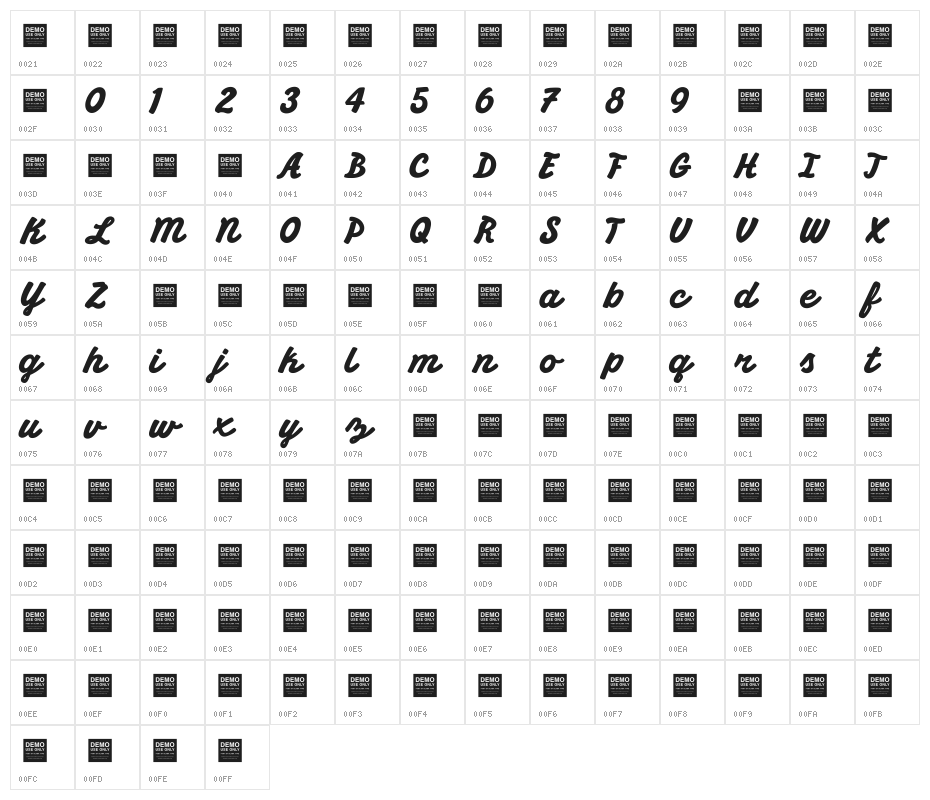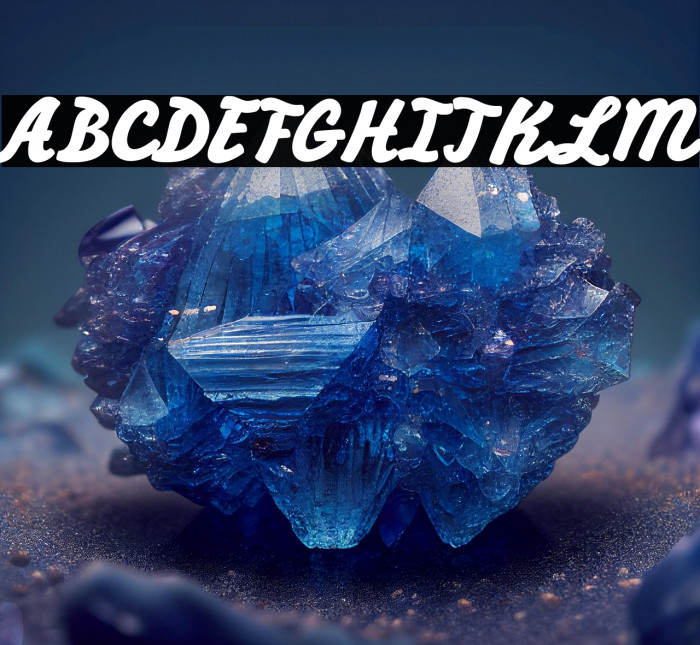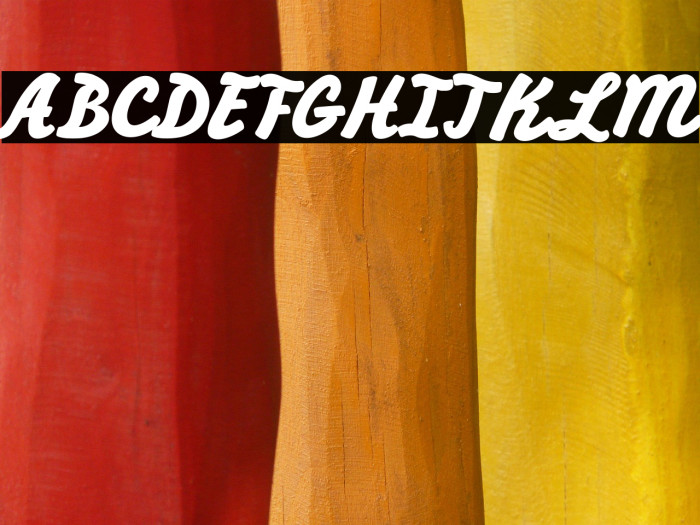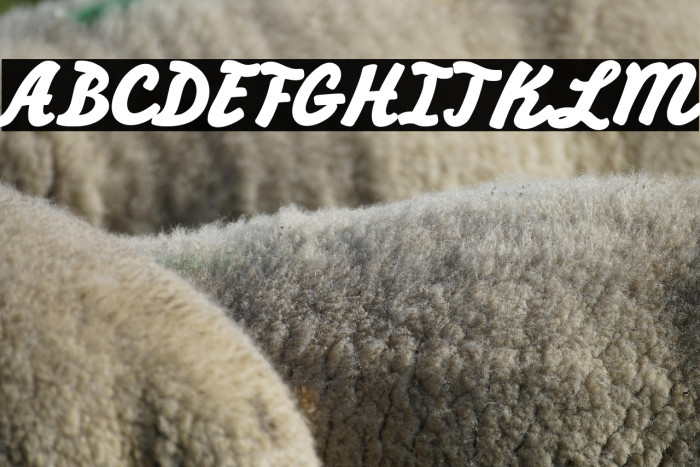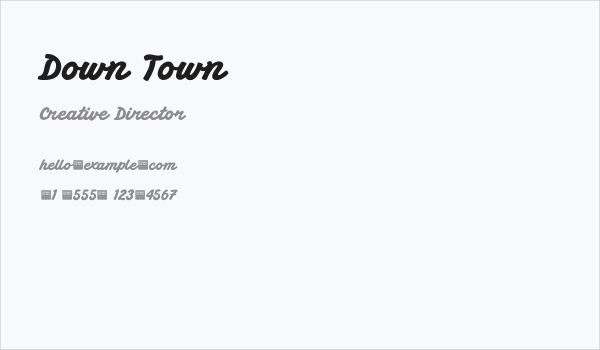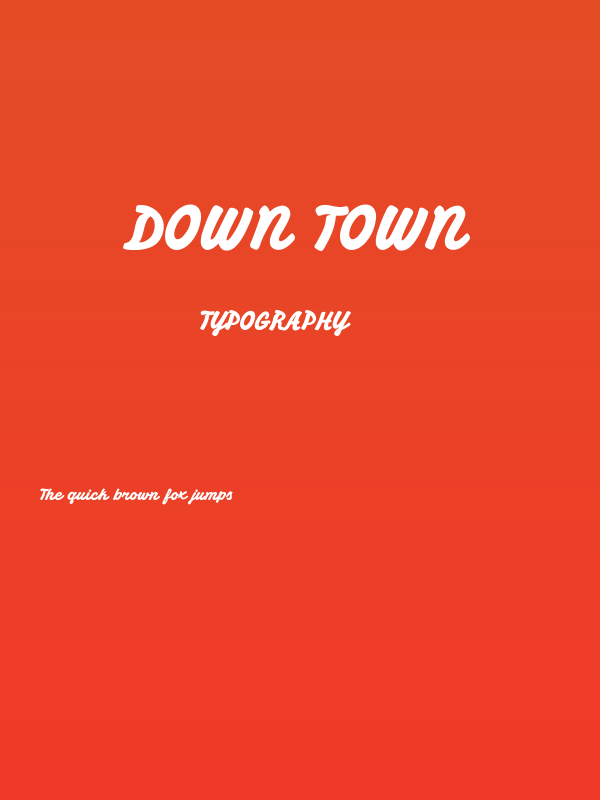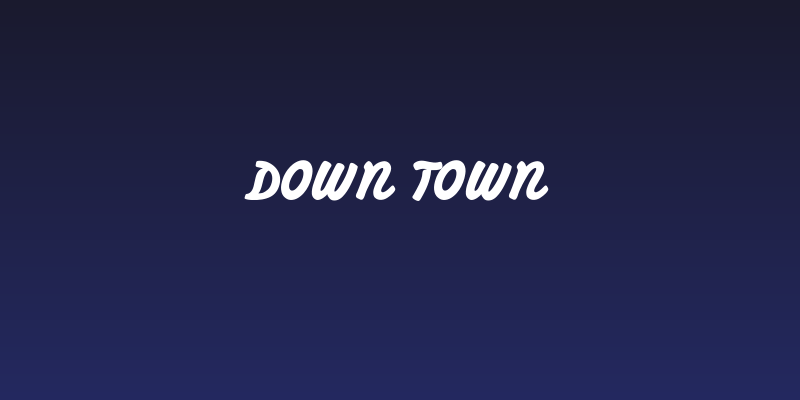
Down Town Font
Down Town Description
This font features a bold, cursive style with smooth, flowing lines that give it a dynamic and energetic appearance. The characters are closely connected, creating a sense of continuity and movement. The uppercase letters are slightly larger and more pronounced, while the lowercase letters maintain a consistent flow. The numerals are rounded and maintain the same boldness as the letters, ensuring uniformity across the typeface. This font's playful and lively nature makes it suitable for projects that require a touch of personality and flair.
| Proposed Projects | Ideal for branding, logos, invitations, and creative posters. |